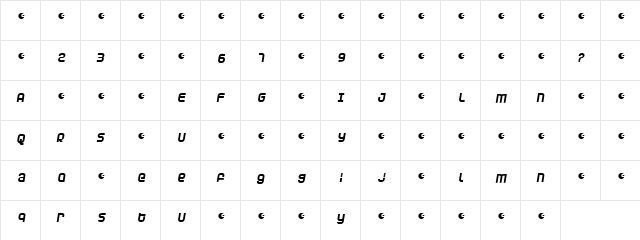
Dunebug Alternates 45MPH Regular
Design Context for Dunebug Alternates 45MPH Typeface
Dunebug Alternates 45MPH takes a measured approach to typography — its balanced proportions and neutral character make it a reliable workhorse for both digital and print work.
Pro Tip: Use Dunebug Alternates 45MPH in both headline and body roles to test its range before committing to a single application.